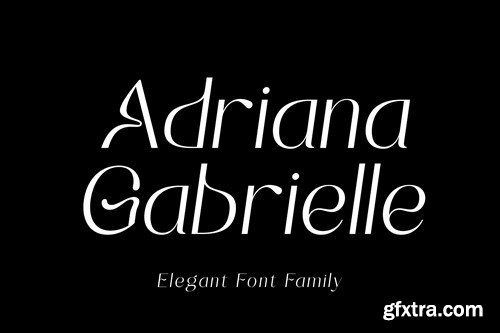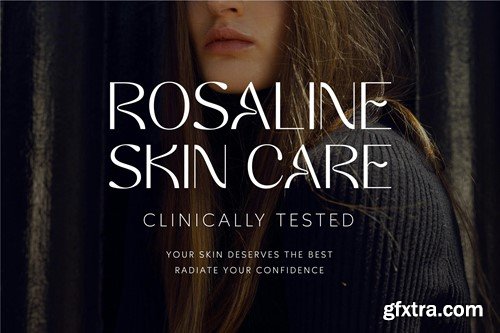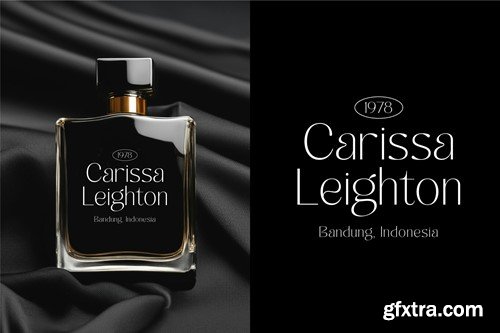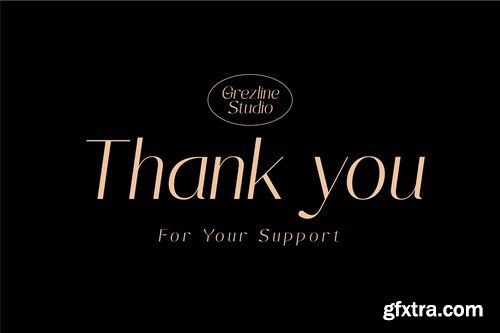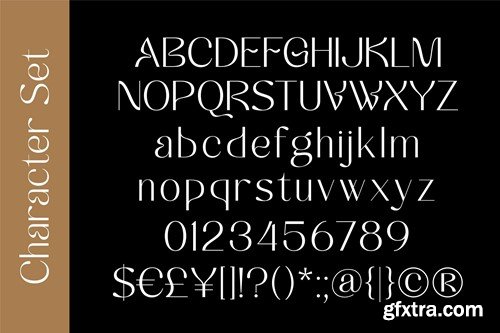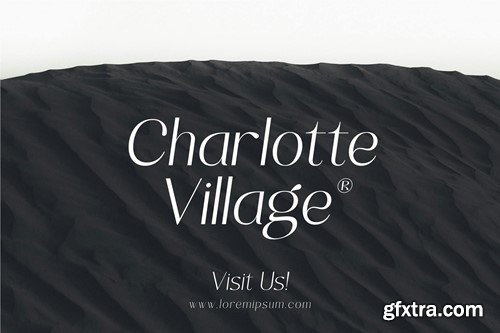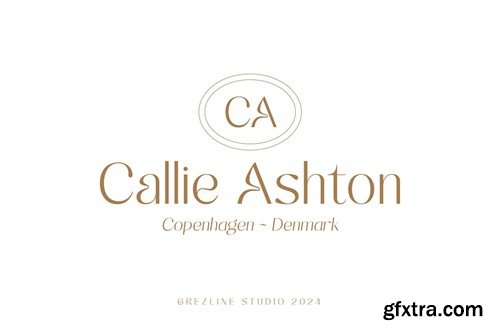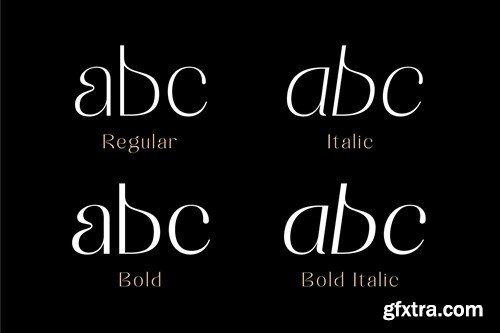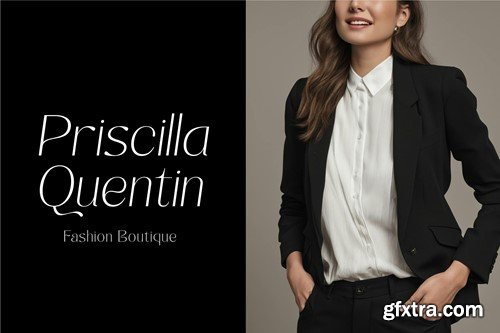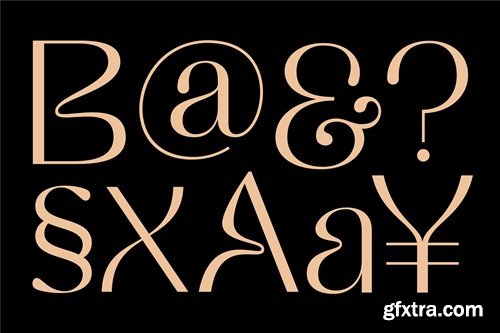
Adrianna Gabrielle - Elegant Font Family 25YFDYG
Adrianna Gabrielle - Elegant Font Family
Adrianna Gabrielle is an elegant sans serif font family. This font has an aesthetic and classy characteristics. Adrianna Gabrielle font is ideal for your upcoming projects, such as luxury logo and branding, woman magazine, cosmetic brand, fashion promotional, art gallery branding, boutique branding, stationery design, blog design, modern advertising design, card invitation, book/cover title and many more.
• Ligature & Alternate glyphs
• Multilingual Language